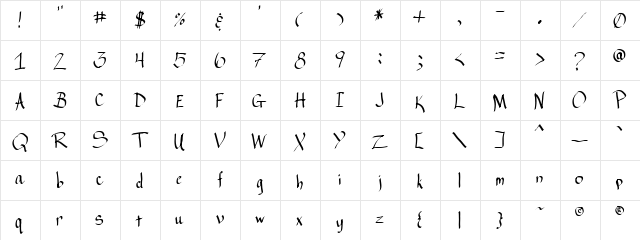
RAHand 1
Design Context for RAHand Typeface
RAHand brings a calligraphic fluidity to the page — its connecting strokes and expressive curves give it an unmistakably human quality.
Font Pairing: Combine RAHand with a simple geometric sans for maximum contrast — the tension between flowing curves and clean structure is a classic typographic pairing.
Pro Tip: Use RAHand for short runs of text — names, titles, or taglines. Extended body copy in script faces tires the eye quickly.